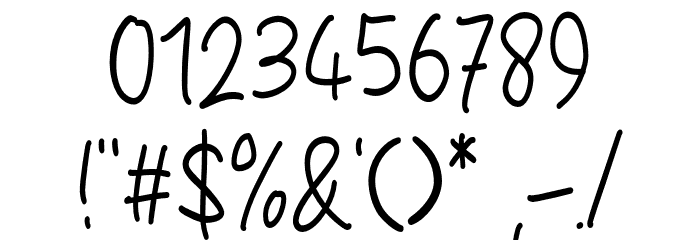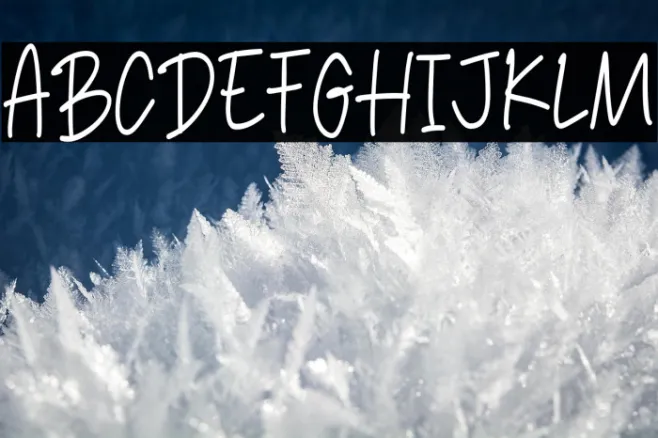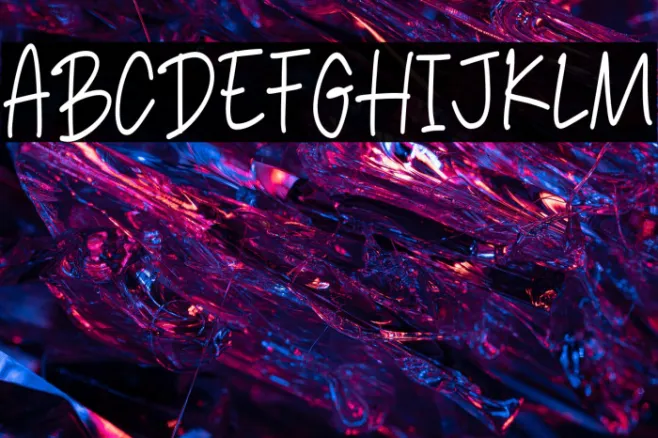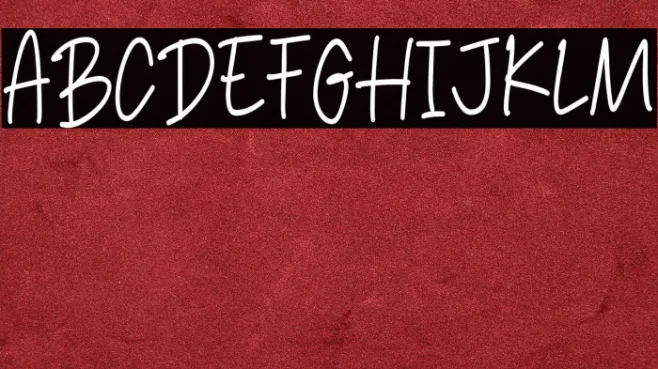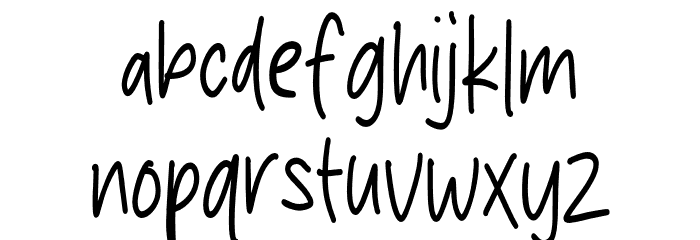
Concept Draft Font
Concept Draft Description
This font exhibits a playful and casual handwritten style, characterized by its smooth, flowing lines and slightly irregular letterforms. The uppercase and lowercase letters maintain a consistent stroke width, contributing to a harmonious appearance. The numerals and special characters are crafted with the same informal flair, making them blend seamlessly with the alphabet. The overall design is approachable and friendly, suitable for conveying a relaxed and personal tone. Its legibility is enhanced by the clear distinction between each character, despite the informal style.
Overall StyleCasual
Use CaseLogos, Headlines, Informal text
Proposed ProjectsIdeal for personal invitations, greeting cards, children's books, and informal branding projects.